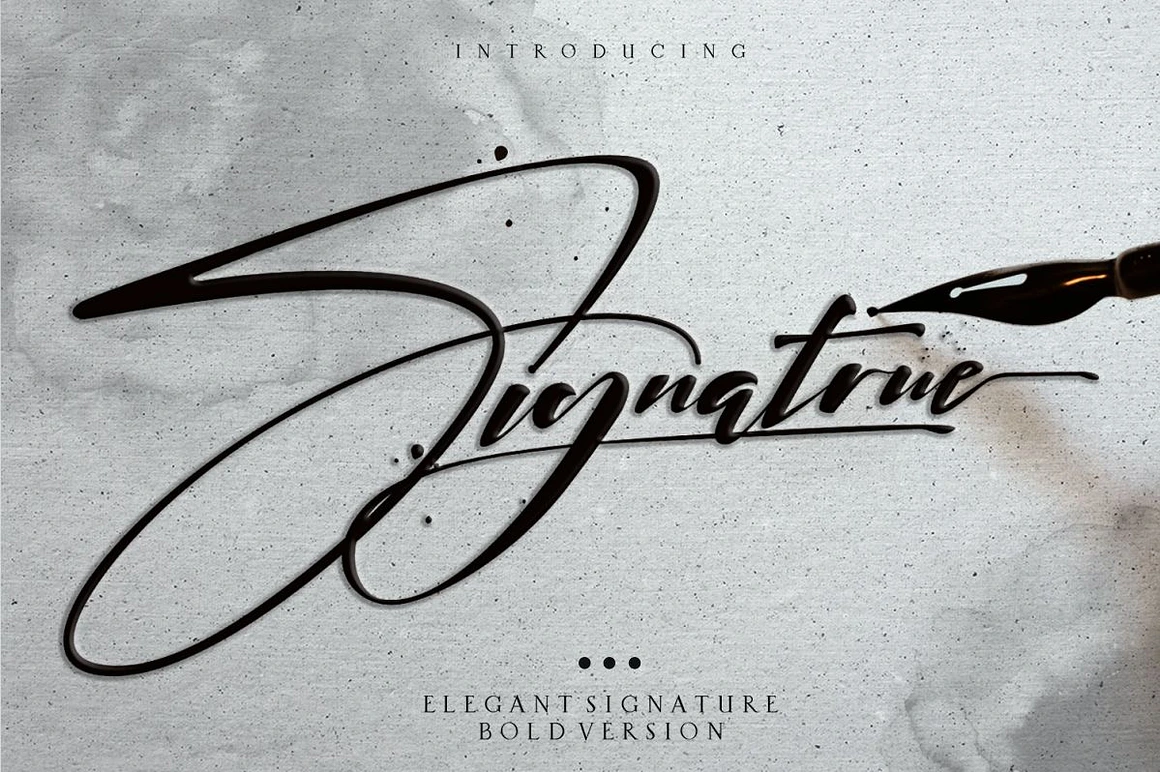
Signatrue Elegant Signature Taste Font
The Signatrue Elegant Signature Taste Font excels in refined design applications including luxury brand identities, sophisticated wedding stationery, high-end restaurant branding, premium product labels, elegant business correspondence, boutique logos, artistic certificates, upscale event invitations, fashion magazine headers, and exclusive packaging designs. Its tasteful script style makes it perfect for projects requiring distinguished elegance that conveys refinement and exceptional quality.
What makes the Signatrue Elegant Signature Taste Font genuinely exciting is its masterful combination of sophisticated letterforms and impeccable taste in design execution. The font features gracefully flowing strokes with refined flourishes and carefully balanced proportions that create an atmosphere of luxury and exclusivity. Each character displays exceptional attention to detail, with smooth curves and elegant connections that suggest the hand of a skilled calligrapher, making every word appear artistically crafted.
The Signatrue Elegant Signature Taste Font family typically includes regular weight with comprehensive character support, featuring uppercase and lowercase letters, numerals, punctuation, and international characters. The typeface often incorporates stylistic alternates, contextual ligatures, and decorative swashes that enhance its elegant signature appeal. These additional glyphs provide designers with sophisticated options to customize text appearance and achieve more refined, tasteful typography.
This distinguished signature font captivates audiences through its remarkable ability to convey luxury and sophistication without appearing ostentatious or overly decorative. Unlike many script fonts that sacrifice readability for style, Signatrue Elegant Signature Taste Font maintains excellent legibility while delivering exceptional visual appeal. The font's refined character makes it ideal for brands and projects seeking to establish credibility and prestige in competitive luxury markets.